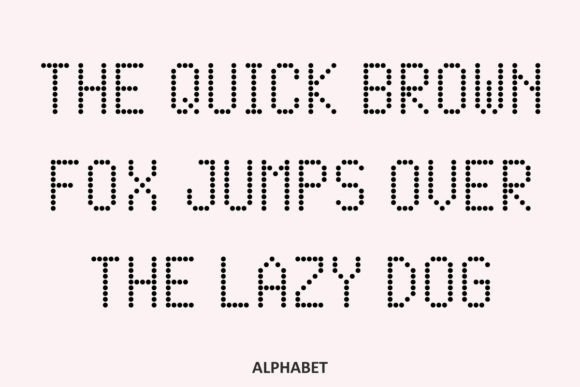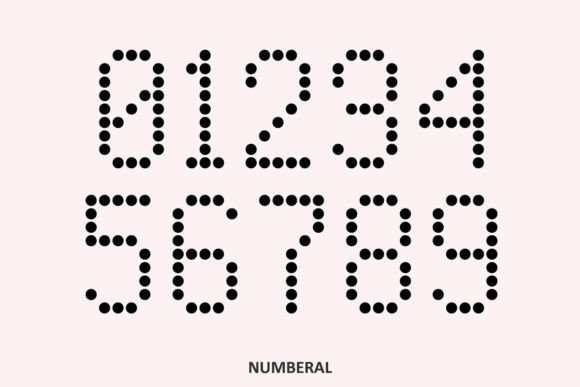
Introducing Digital Dotted: Elevate Your Visual Content with a Unique Dot Font Display
Have you ever been in the middle of a design project, and suddenly, you’re stuck on finding the perfect font? I recall a recent experience where a client asked for a retro look reminiscent of an old office document. The challenge was to find a font that was both modern and nostalgic. That’s when I discovered “Digital Dotted,” a captivating dot font display that has become my go-to for adding a distinctive touch to my designs.
A Personal Review of Digital Dotted
• Unique and captivating design: Digital Dotted’s dot font display style is unlike anything I’ve seen before. It’s perfect for adding a touch of modernity and nostalgia to my designs.
• Versatile: This font is incredibly versatile and can be used for a wide range of projects, from children’s activity books to retro-themed designs.
• 💡 Inspires creativity: Digital Dotted’s distinctive style has inspired me to think outside the box and experiment with new design ideas.
While Digital Dotted is an amazing font, there are a few quirks to be aware of:
• 🤔 Limited use cases for body text: Due to its unique design, Digital Dotted is best suited for headlines, titles, and short paragraphs. It may not be the best choice for lengthy body text.
• ⚠️ Requires careful kerning: As with any font, kerning is crucial to ensure that the dots align properly. This may require some manual adjustments.
The Backstory of Digital Dotted
Digital Dotted was inspired by the nostalgic look of old office documents and the modernity of digital design. The font’s creator aimed to capture the essence of both worlds, resulting in a unique and captivating dot font display style.
Author Font Craft Studio
What is Digital Dotted? Digital Dotted is a unique dot font display style that combines modernity and nostalgia.
What can I use Digital Dotted for? Digital Dotted is perfect for a wide range of projects, including children’s activity books, retro-themed designs, and creative projects.
Is Digital Dotted suitable for body text? No, Digital Dotted is best suited for headlines, titles, and short paragraphs. It may not be the best choice for lengthy body text.